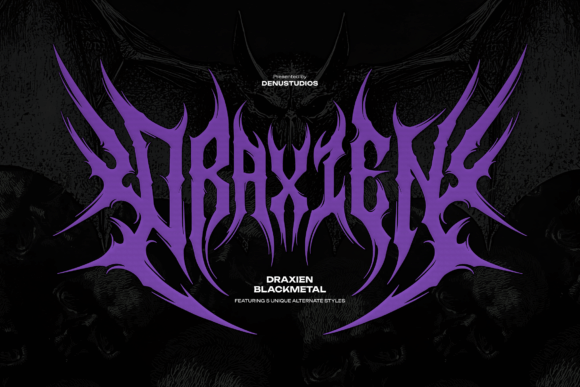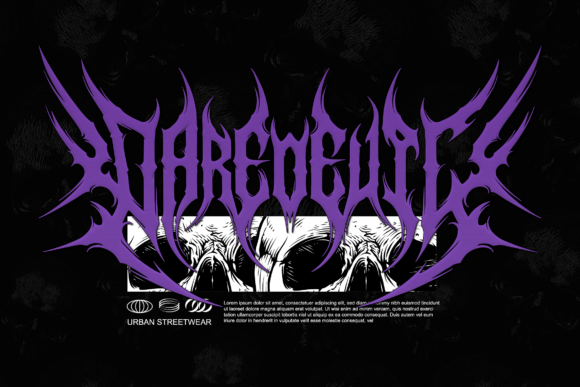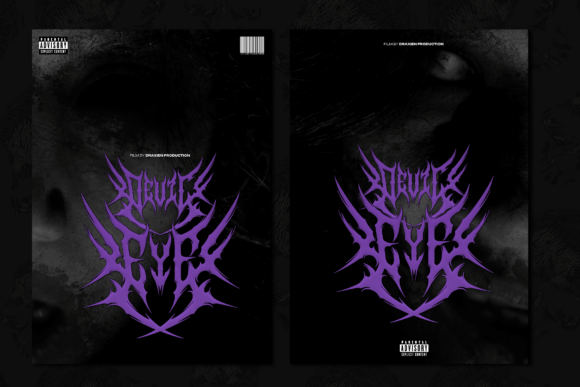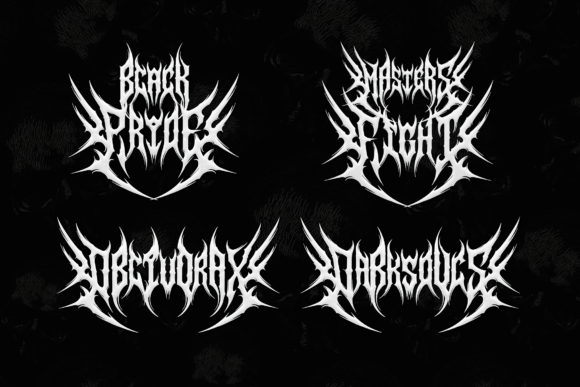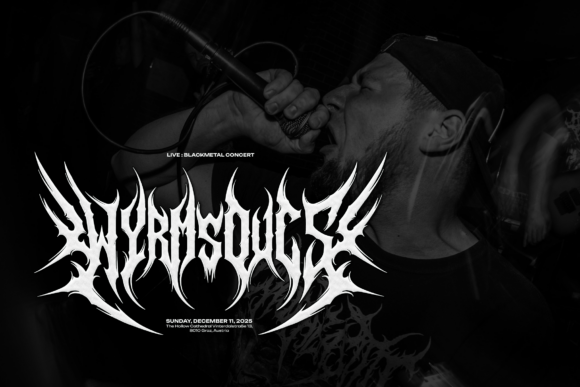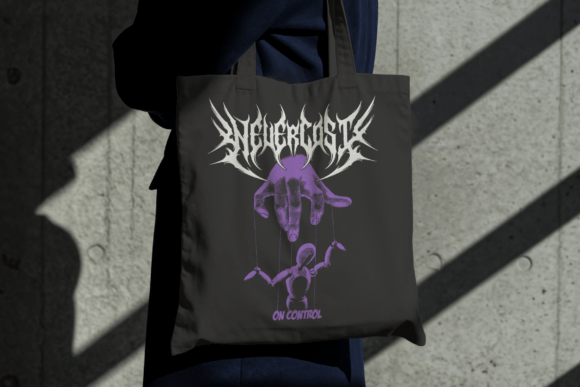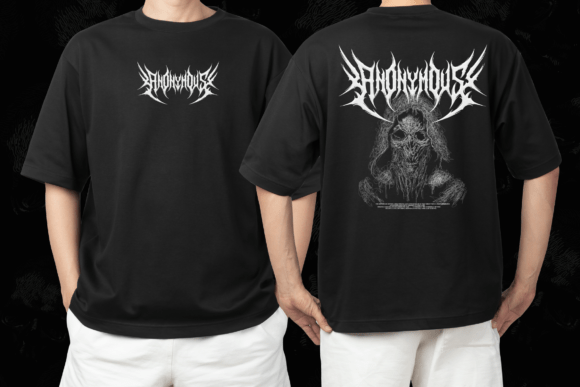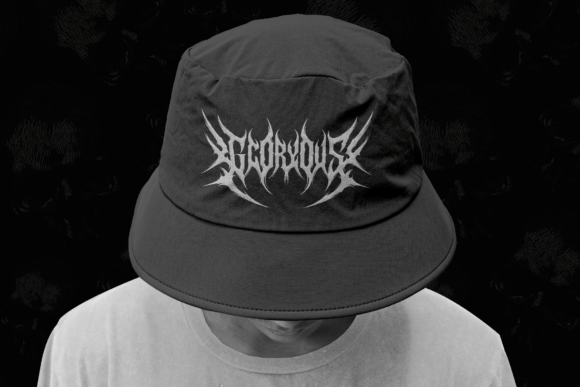
Draxien Font
Draxien is a fierce and chaotic black metal display font crafted for extreme music genres, horror themes, and underground branding. With razor-sharp strokes, spiked letterforms, and high-impact intensity, this font captures the raw, aggressive spirit of metal culture. It comes with 5 unique alternate styles, perfect for logos, band merch, album covers, and anything that demands a dark and brutal aesthetic.